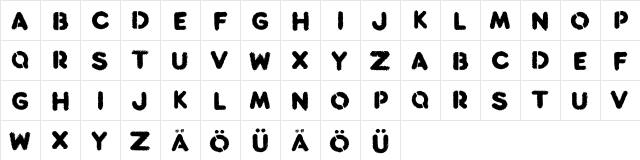
Reclaim Regular
| Foundry | Nils von Blanc |
| Designer | Nils von Blanc |
Design Context for Reclaim Typeface
Reclaim is a composed and adaptable typeface that performs quietly and consistently across a wide range of design contexts.